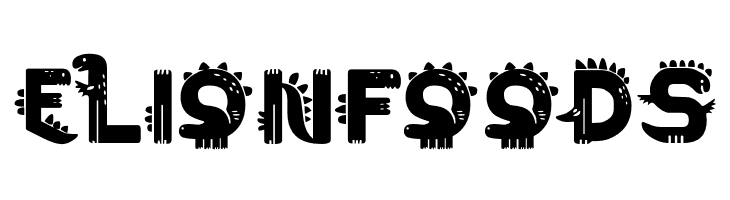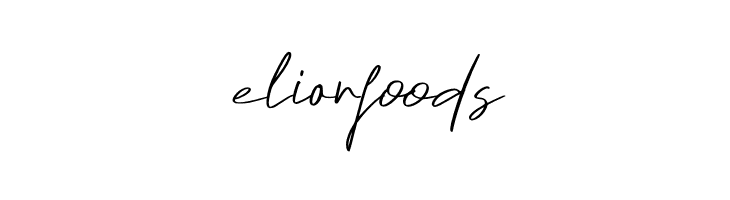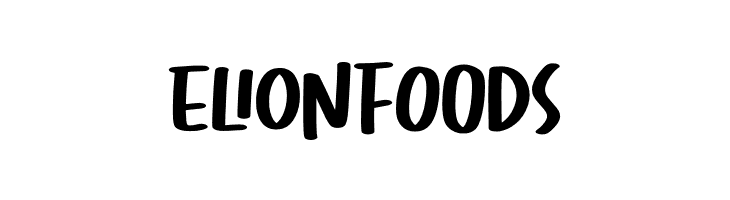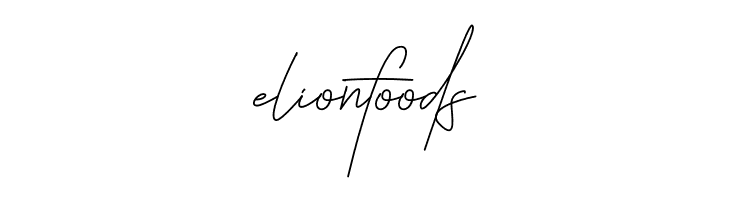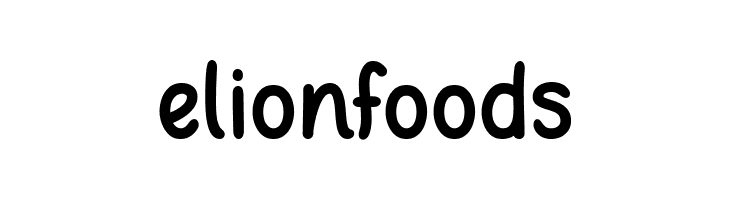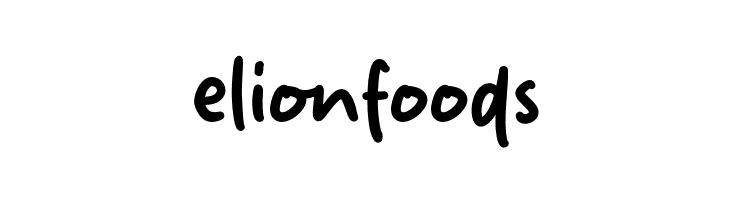
( Fonts by Kong Font )
A playful, dinosaur-themed font with bold, cartoonish characters.
( Fonts by Kong Font )
A playful dinosaur-themed font with whimsical elements for a fun visual impact.
( Fonts by Kong Font )
A flowing, handwritten style with elegant curves and a natural feel.
( Fonts by Kong Font )
A playful, rounded font with a hand-drawn feel and bold strokes.
( Fonts by Kong Font )
A bold, playful handwritten font with thick strokes and a casual style.
( Fonts by FinTypeStudio )
Elegant handwritten script font.
( Fonts by 7NTypes )
Playful handwritten font with rounded edges.
( Fonts by Origin Type )
Casual handwritten font with rounded, playful strokes.